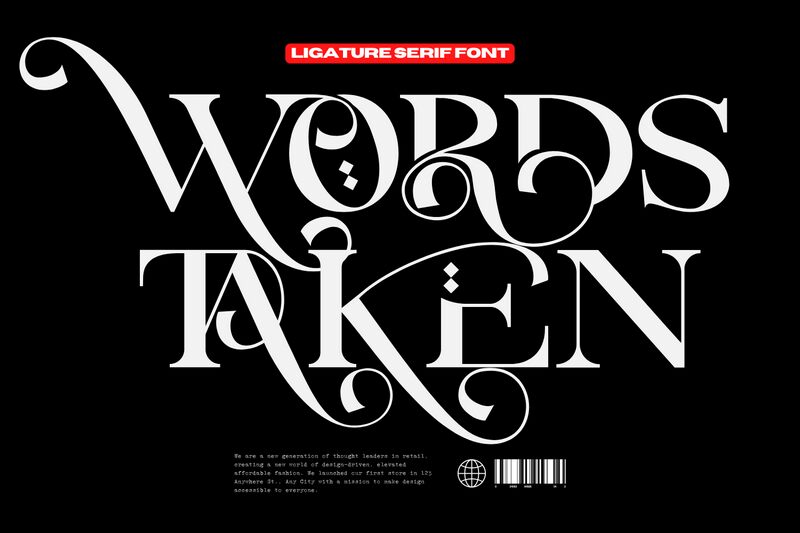
Words Taken Demo Regular
Words Taken font by 177Studio is a retro display typeface with an expanded form. Its ornamental and decorative design gives it an elegant, vintage-inspired charm that feels both sophisticated and timeless. Each character is uniquely crafted to make an eye-catching impression through its intriguing detail.